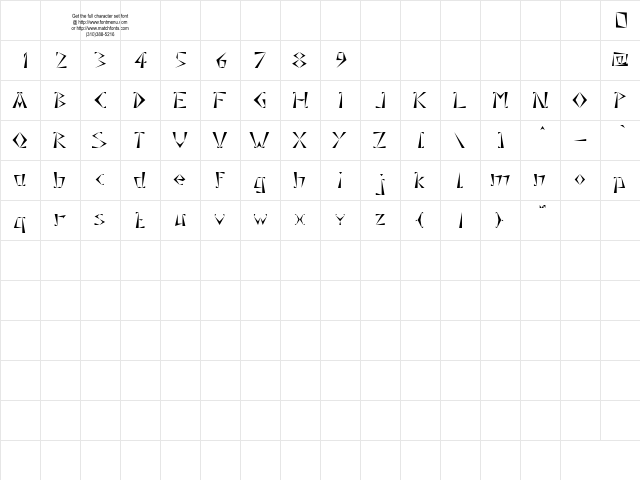
Grecques Tryout Regular Font Preview
Grecques Tryout Regular
Design Context for Grecques Tryout Typeface
Grecques Tryout is a composed and adaptable typeface that performs quietly and consistently across a wide range of design contexts.
Pro Tip: Use Grecques Tryout in both headline and body roles to test its range before committing to a single application.